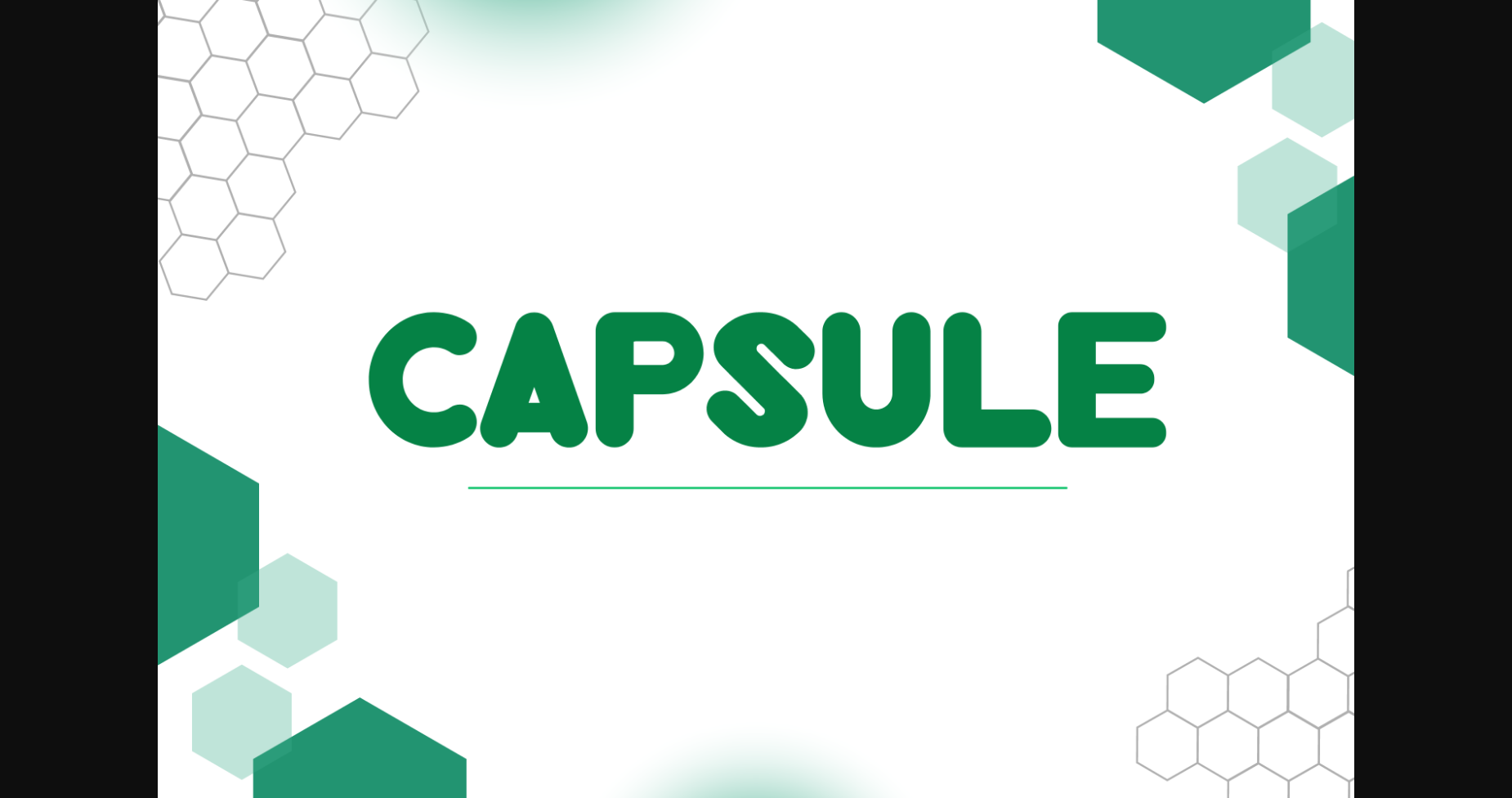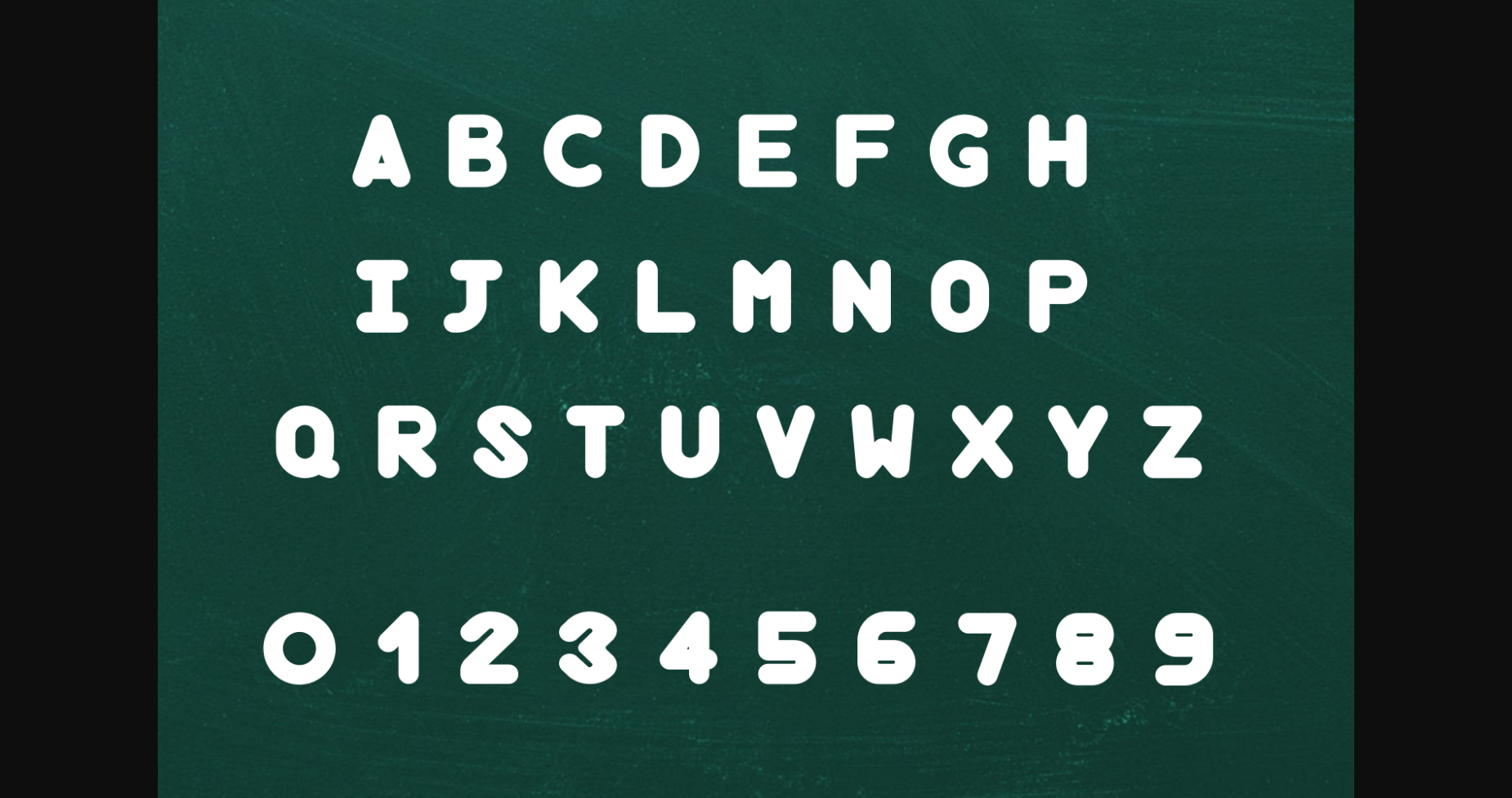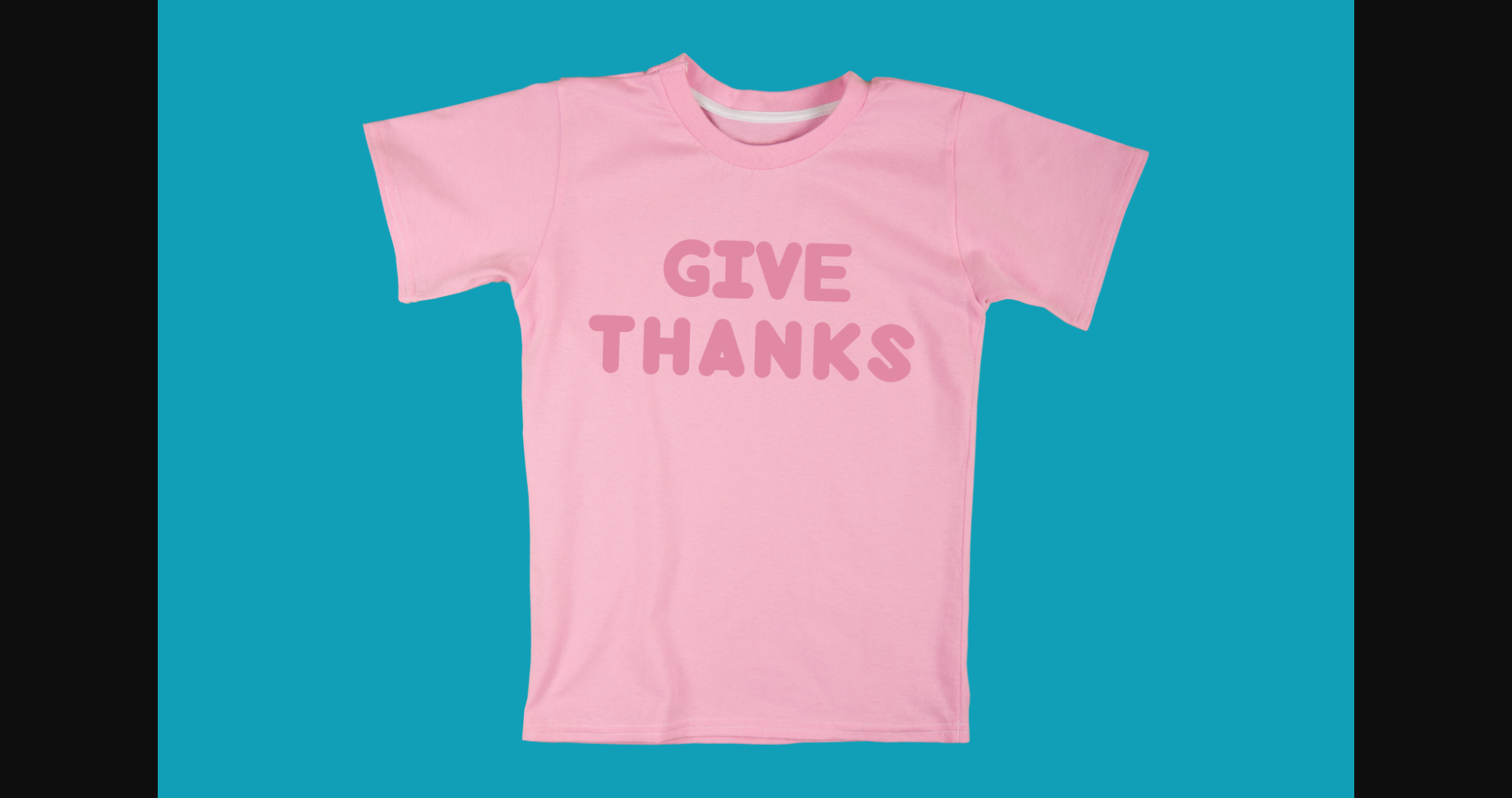
About Capsule Font
Introducing “Capsule”, designed with a sleek and modern look, reminiscent of a capsule shape. This font is perfect for those looking for a clean and beautiful design, with large, bold lettering and numbers that demand attention. With its easy-to-read letters and numbers, this font is ideal for branding, advertising, and marketing materials.